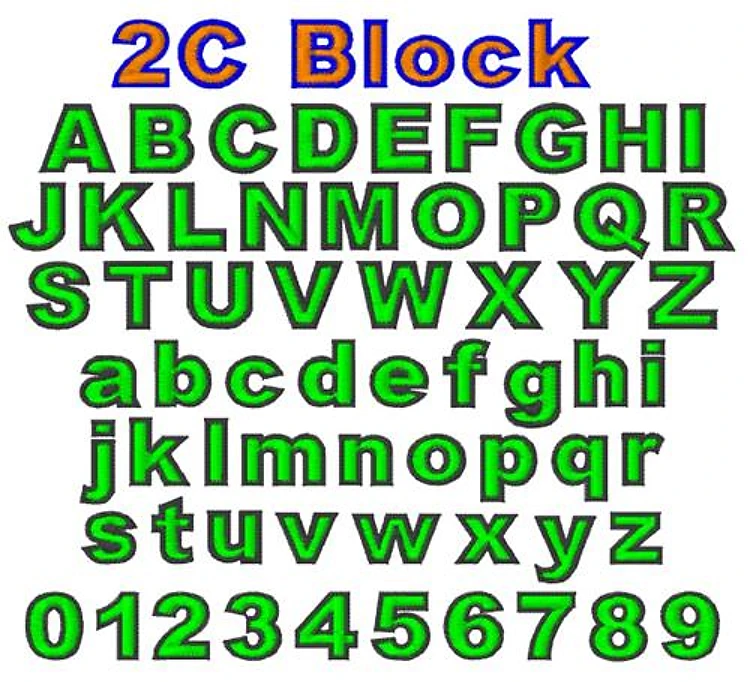
Internet Stitch is happy to present 2C Block machine embroidery font which has Bold block style machine embroidery font, ideal for bags or jackets, showcases filled letters in orange with a blue outline. Available formats include ELP. included. If you would like to view more embroidery fonts and alphabets please search our embroidery fonts page.